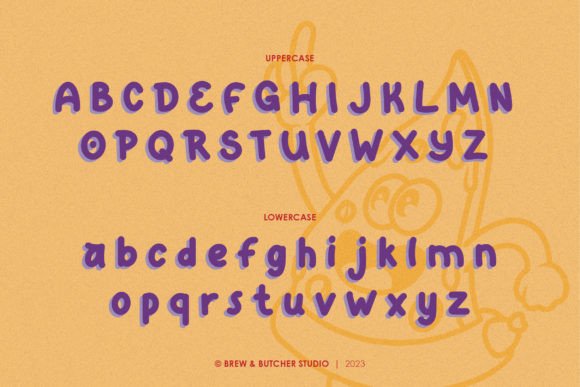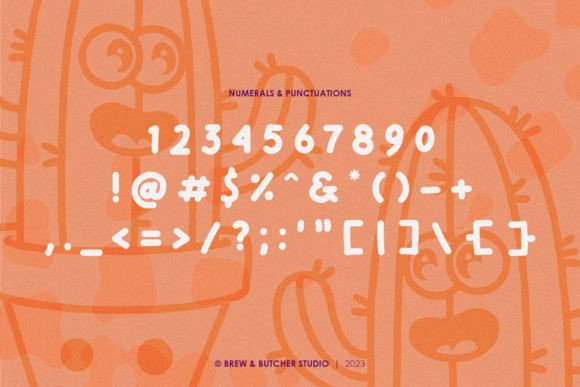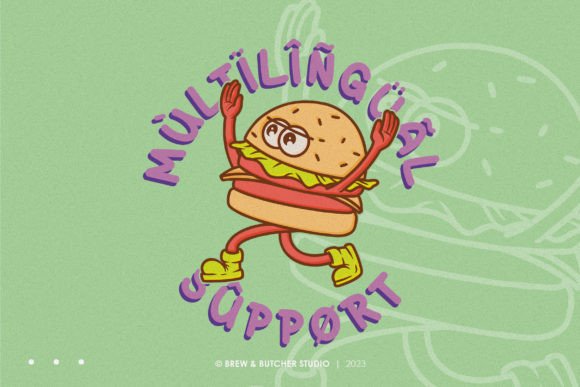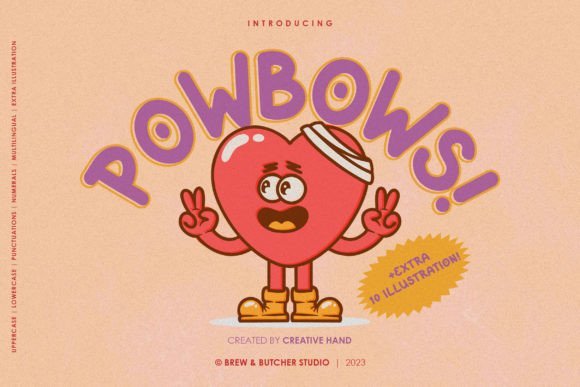
Introduction to Powbows Font
Powbows is a smooth display font style, with simple and unique lines.
Inspired by a funny view and unique character Made with thick line accents, thus giving a solid impression, and the shape that is not precise makes it look more unique.